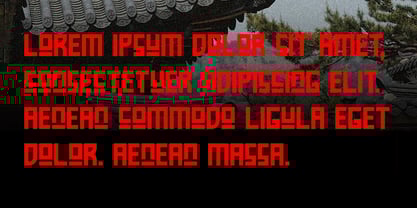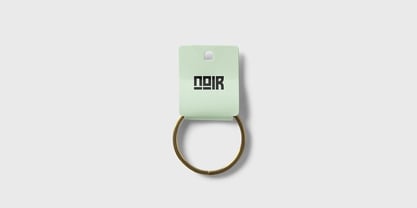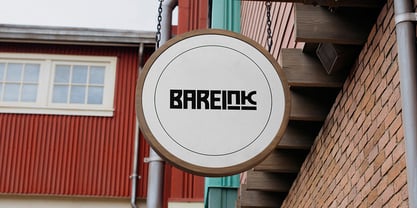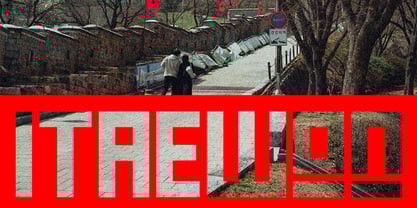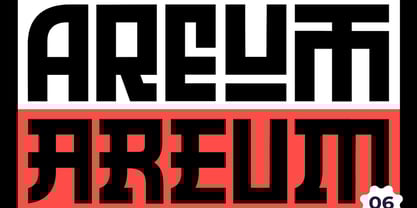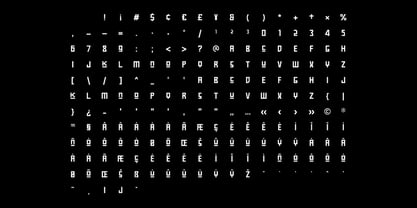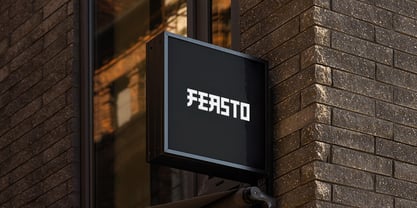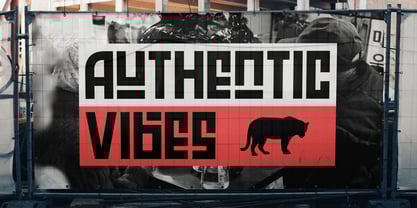
Areum display
by Webhance
The Areum display Font Family was designed by Alwin Johnson, Ancy George and published by Webhance. Areum display contains 6 styles and family package options. More about this family
AREUM Display Font is a bold, modular display typeface rooted in the elegance of Hangul characters and built for striking visual presence. Designed by Webhance Studio, this geometric font draws inspiration from traditional Korean aesthetics while embracing a modern, minimal design language. The word “Areum” (아름) translates to “beauty” in Korean, perfectly capturing the font’s essence—where cultural richness meets contemporary clarity..
Designers: Alwin Johnson, Ancy George
Foundry: Webhance